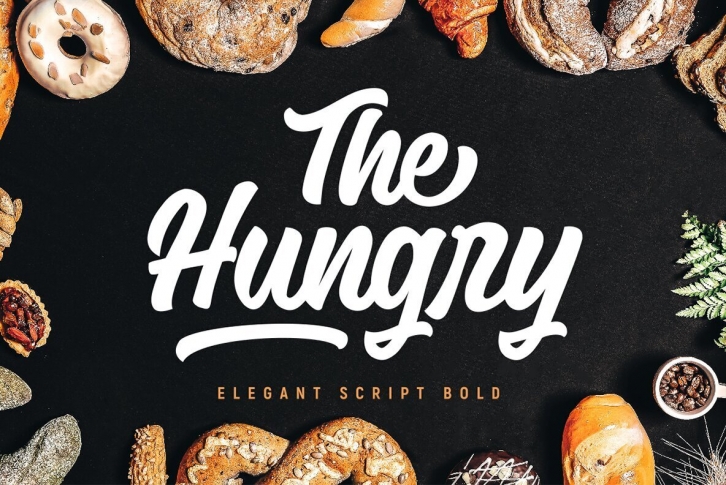
The Hungry Font Download
The Hungry font features a bold and smooth style, making it ideal for bringing any design to life. Perfect for branding, packaging, print titles, t-shirt designs, food design, and similar projects, this font boasts over 50 stylistic alternates and natural ligatures to create a classy and beautiful appearance.